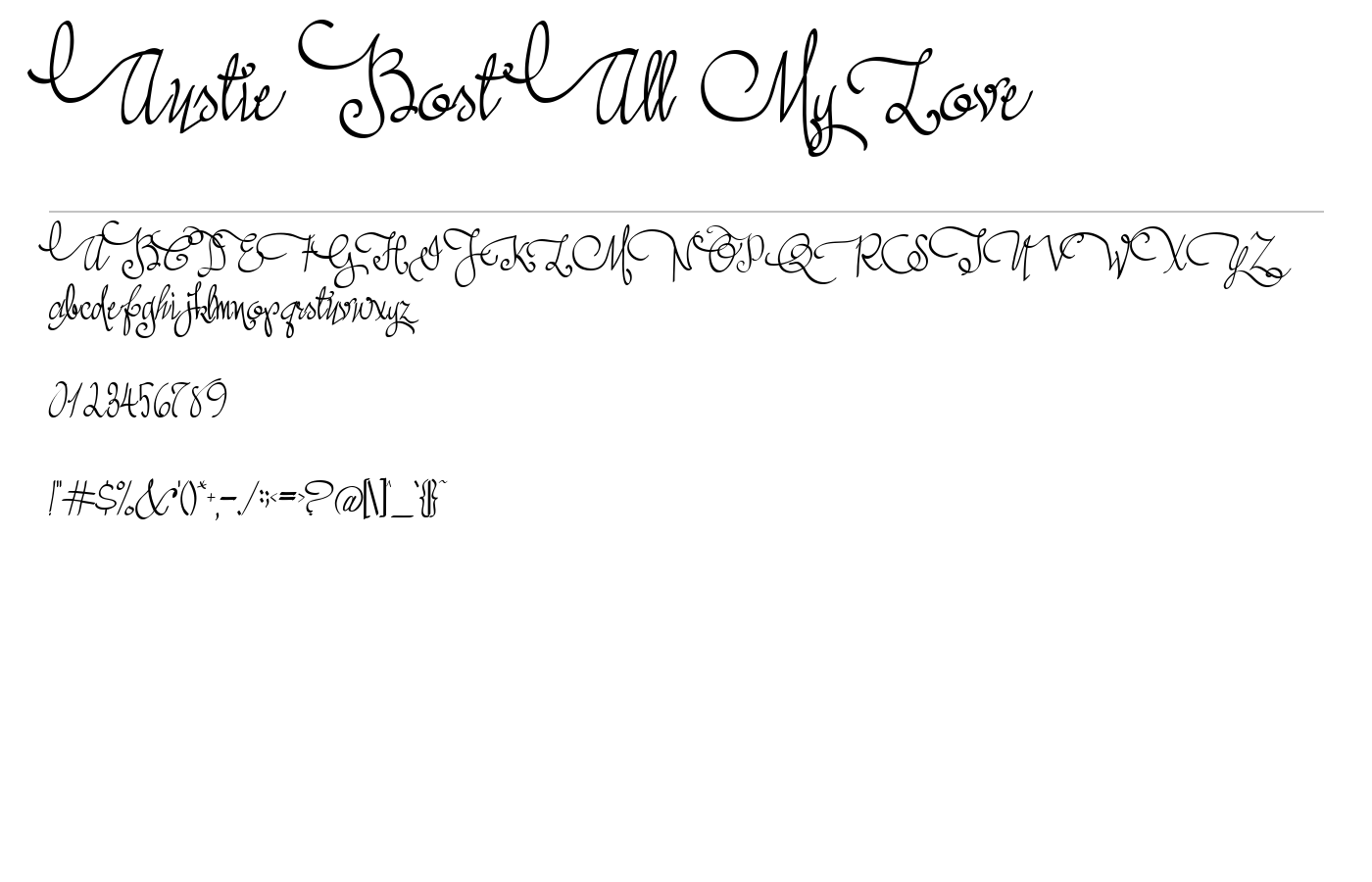
Austie Bost All My Love is an elegant, highly decorative script font with delicate, flowing strokes and intricate swirls that evoke a romantic and whimsical feel. Its tall, slender letterforms and fine lines make it perfect for luxury branding, wedding invitations, and artistic projects where a graceful, feminine touch is desired. This font shines in display use, adding a sophisticated yet playful personality to logos, headlines, and special event designs.
Austie Bost All My Love Font
About Austie Bost All My Love Font
| Font family | Austie Bost All My Love Font |
| Designer | Austin Owens |